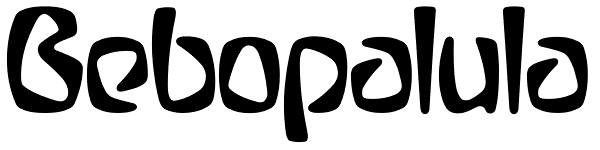
Bebopalula
No prizes for guessing this font family was inspired by the 1950s - the sounds (Buddy, Eddie, Elvis), the styles (polka dots, petticoats and Dior's New Look), and the kitsch, from furry dice above the dashboard to plaster ducks over the mantlepiece...